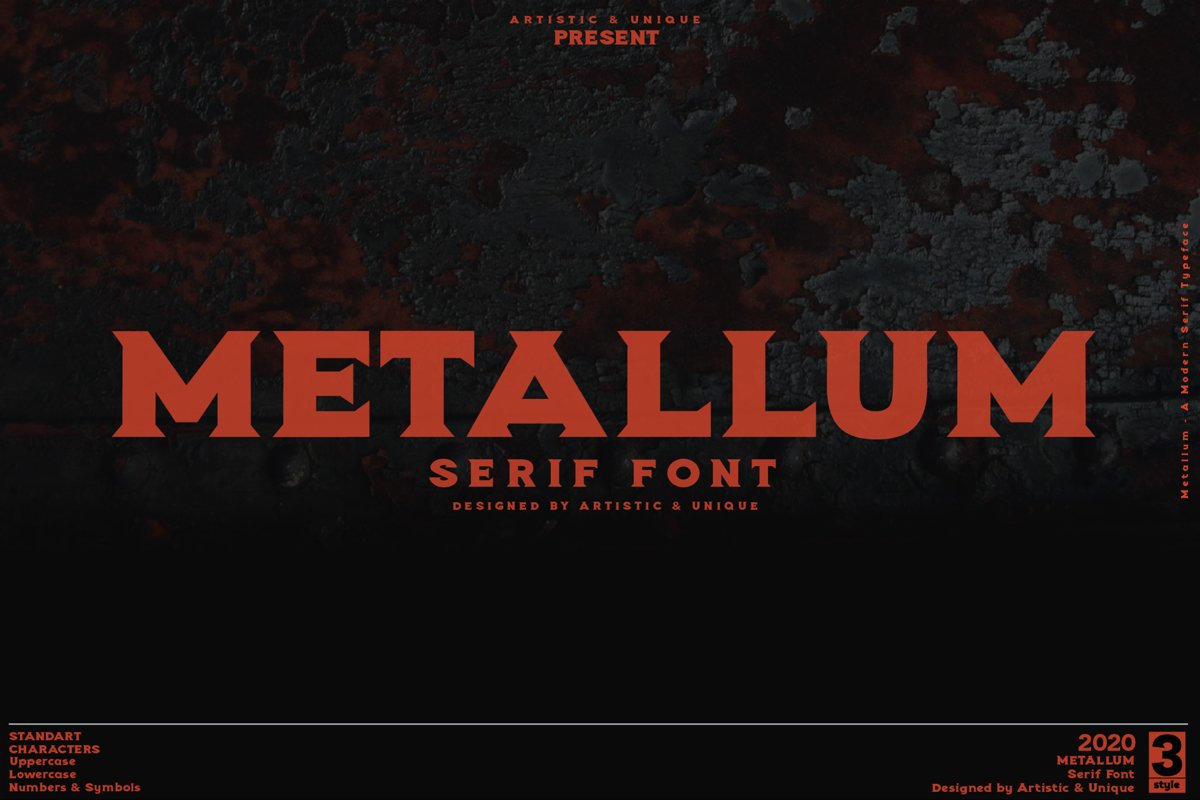
Metallum - Serif font Family
Metallum-Bold
Metallum-Black
Metallum-Bold Outline
Metallum - Serif font Family (2020)
Metallum font is a modern font inspired by stone and wood carved letter inscriptions and vintage metal plates.
With Metallum Outline version, you can enrich your creative designs.
Featuring a classic look and mature features, this font family meets your needs for powerful titles, store titles, magazines, websites, movie titles, posters, books,    brochures, logos, packaging design, branding and more.
Metallum typeface, is a perfect font for your design ideas.
FONT FAMILY :
• Metallum
FONT SUBFAMILY :
• Metallum-Bold
• Metallum-Black
• Metallum-Bold Outline
• Uppercase typeface
• Lowercase typeface
• Symbols
With this font you can create your unique designs.